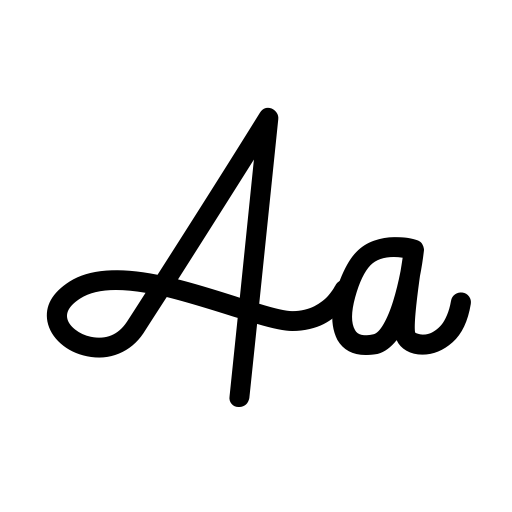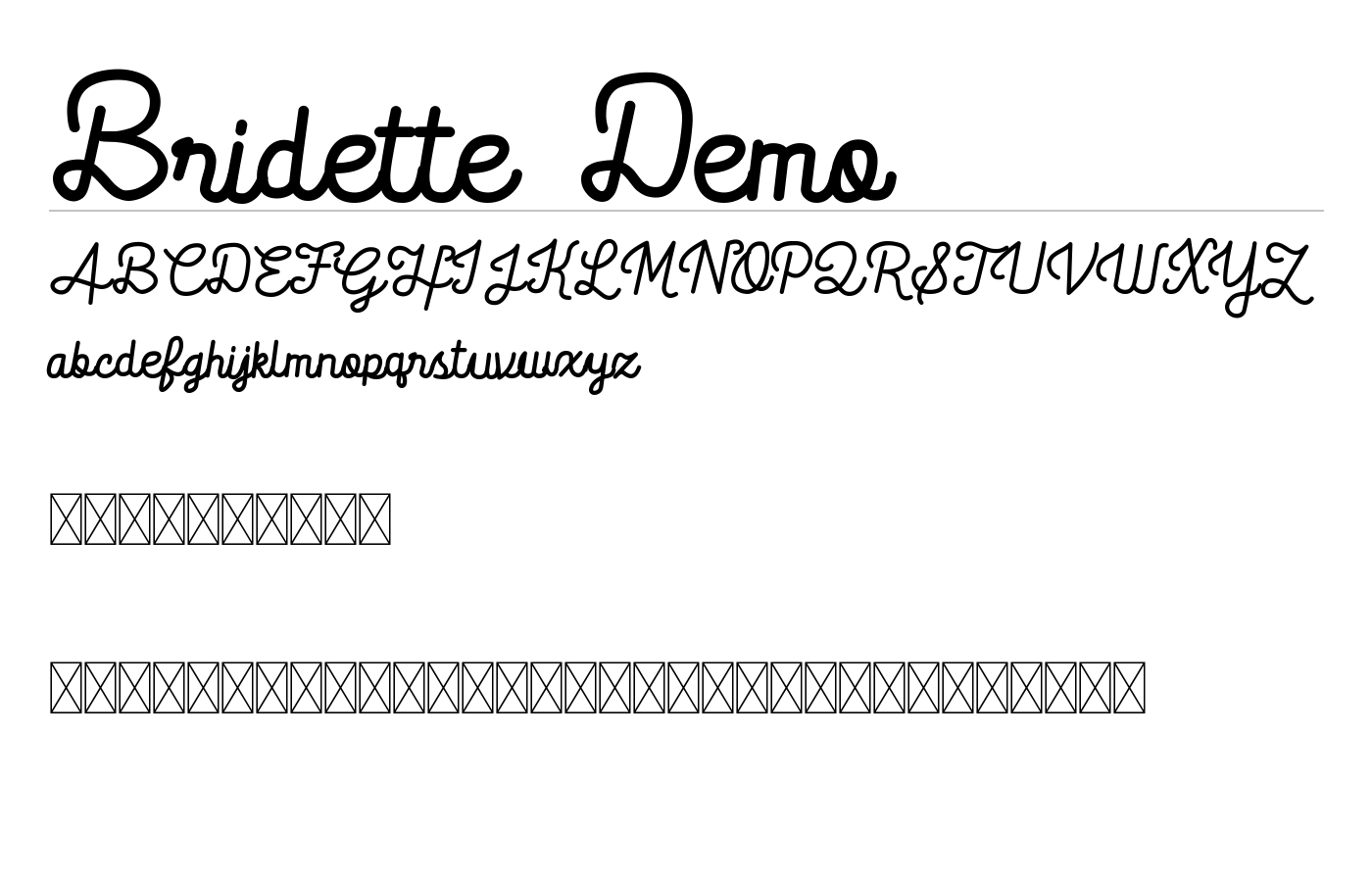
Bridette Demo Font is a charming, hand-lettered script font with a playful and friendly character. Its smooth, rounded strokes and connected letterforms create a casual yet elegant feel, making it perfect for invitations, branding, and any design needing a warm, personal touch. This font works well in logos, greeting cards, and stylish headlines where a creative, approachable style is desired.
Bridette Demo Font
About Bridette Demo Font
| Font family | Bridette Demo Font |
| Designer | Dendy Herlambang |